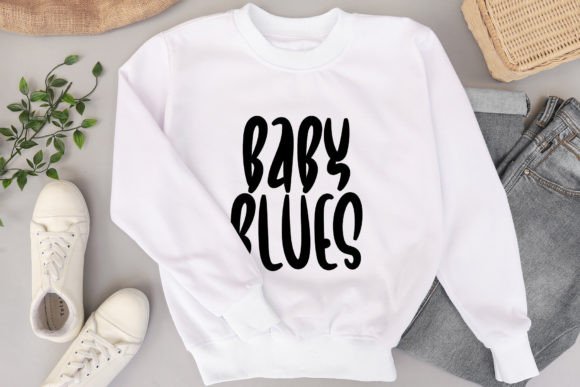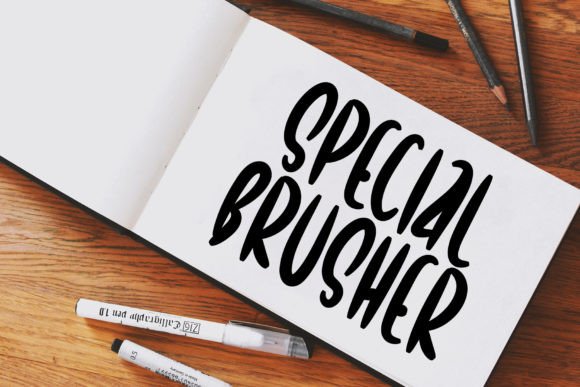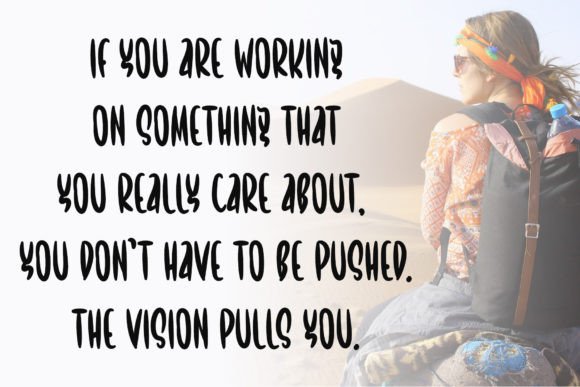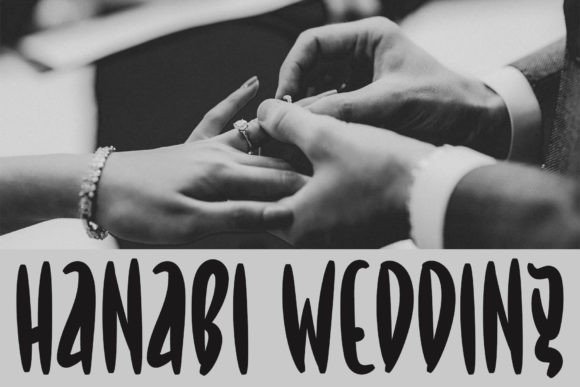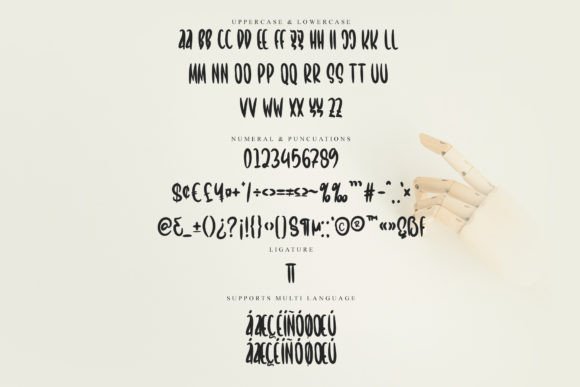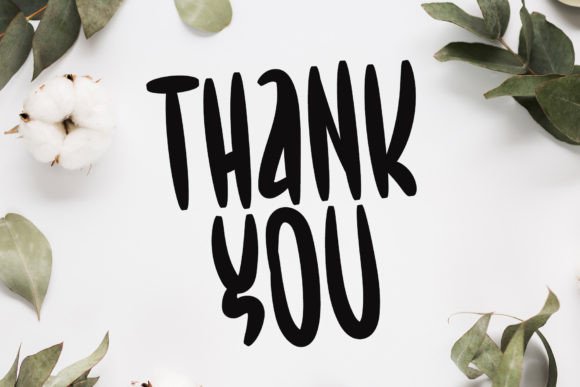
Dauting Font: The Fun and Quirky Display Font for Creative Projects
Are you tired of using the same old fonts for your creative projects? Look no further than Dauting Font, a fun and quirky display font that’s perfect for adding a touch of personality to your designs. In this article, we’ll take a closer look at Dauting Font, its features, and how you can use it to elevate your creative projects.
What is Dauting Font?
Dauting Font is a display font designed to make a statement. Its unique and quirky design makes it perfect for use on a variety of topics, from creative projects to marketing materials. The font is characterized by its bold and playful style, which is sure to grab attention and add a touch of whimsy to your designs.
Features of Dauting Font
Dauting Font comes with a range of features that make it a versatile and fun font to work with. Some of its key features include:
- Unique and quirky design: Dauting Font has a one-of-a-kind design that’s sure to make your projects stand out.
- Bold and playful style: The font’s bold and playful style makes it perfect for use on a variety of topics, from creative projects to marketing materials.
- Easy to read: Despite its bold style, Dauting Font is easy to read, making it perfect for use on both digital and print materials.
- High-quality design: The font is designed with high-quality graphics, ensuring that it looks great on any device or medium.
How to Use Dauting Font
Dauting Font is perfect for use on a variety of creative projects, including:
- Graphic design projects: Use Dauting Font to add a touch of personality to your graphic design projects, such as brochures, posters, and flyers.
- Digital marketing materials: The font is perfect for use on digital marketing materials, such as social media graphics, email headers, and website titles.
- Crafting and DIY projects: Dauting Font is also great for use on crafting and DIY projects, such as handmade cards, gift tags, and scrapbooking pages.
Benefits of Using Dauting Font
There are many benefits to using Dauting Font on your creative projects. Some of the key benefits include:
- Adds personality to your designs: Dauting Font adds a touch of personality to your designs, making them more engaging and memorable.
- Grabs attention: The font’s bold and playful style grabs attention and draws the eye to your message.
- Versatile: Dauting Font is versatile and can be used on a variety of creative projects, from graphic design to crafting and DIY.
- Easy to use: The font is easy to use and can be easily integrated into your design workflow.
Tips for Using Dauting Font
Here are some tips for using Dauting Font on your creative projects:
- Use it sparingly: Use Dauting Font sparingly to add emphasis to your message. Overusing the font can make your designs look cluttered and overwhelming.
- Pair it with other fonts: Pair Dauting Font with other fonts to create a unique and interesting design.
- Experiment with colors: Experiment with different colors to find the perfect combination for your design.
- Have fun: Most importantly, have fun with Dauting Font! The font is designed to be playful and fun, so don’t be afraid to get creative and try new things.
Dauting Font is a fun and quirky display font that’s perfect for adding a touch of personality to your creative projects. With its unique and bold design, it’s sure to grab attention and make your designs stand out. Whether you’re a designer, crafter, or DIY enthusiast, Dauting Font is a great addition to your font collection. So why not give it a try and see the amazing results for yourself?